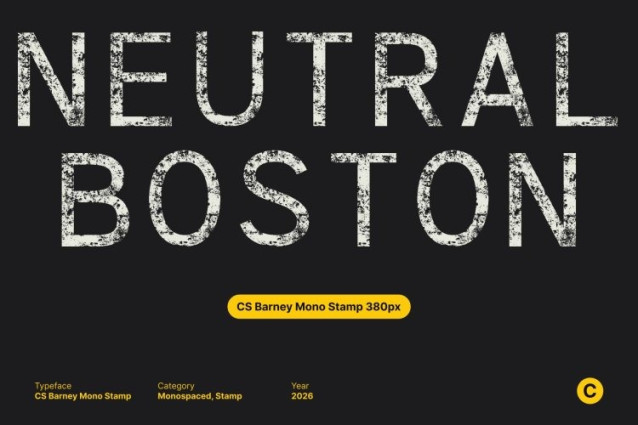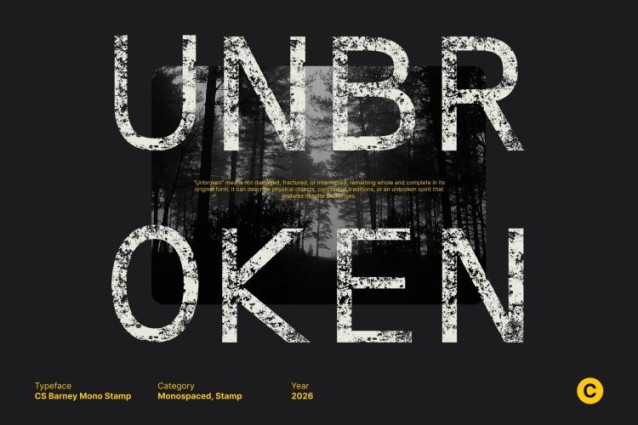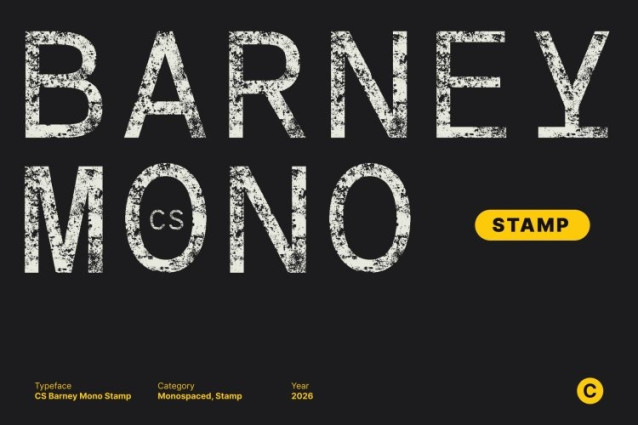
CS Barney Mono Stamp Font This is a modern sans serif monospaced font built on clarity, consistency, and balance, enhanced with a distinctive stamp texture. Its evenly spaced characters ensure precision and structure, while the stamped effect introduces subtle vintage and industrial character adding warmth and visual depth to an otherwise clean, technical design.
Monospaced Structure for Technical and Digital Use
Designed with uniform spacing, remains ideal for coding, programming, and technical layouts. The clear letterforms and consistent rhythm support readability in precision-driven environments, while the textured stamp finish adds personality without compromising functionality.
Modern Utility with Creative Edge
Beyond technical applications, this font brings a structured yet expressive look to branding and creative projects. The combination of monospaced geometry and stamped texture makes it suitable for logos, packaging, posters, labels, and visual identities that seek a modern feel with handcrafted or industrial nuance.
Versatile for Clean yet Characterful Design
Whether used in interfaces, brand systems, editorial layouts, or structured documents, delivers clarity with character. Its fusion of modern sans serif precision and vintage-inspired stamp texture ensures a cohesive, distinctive look across both digital and print projects.